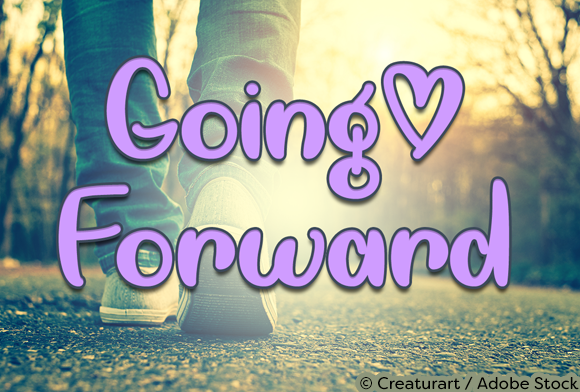
Going Forward Font
About Going Forward Font
Going Forward is a stylish handwritten font that is great for a big variety of projects! Fall in love with its whimsical charm.